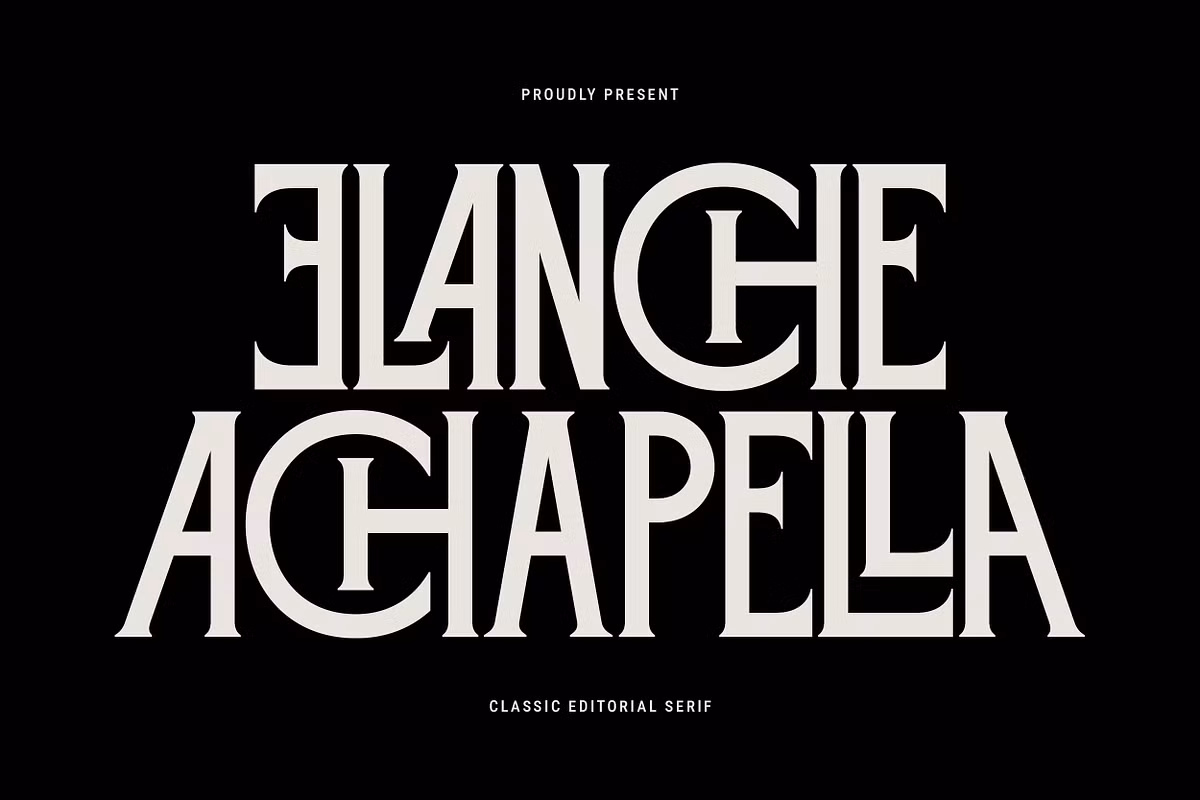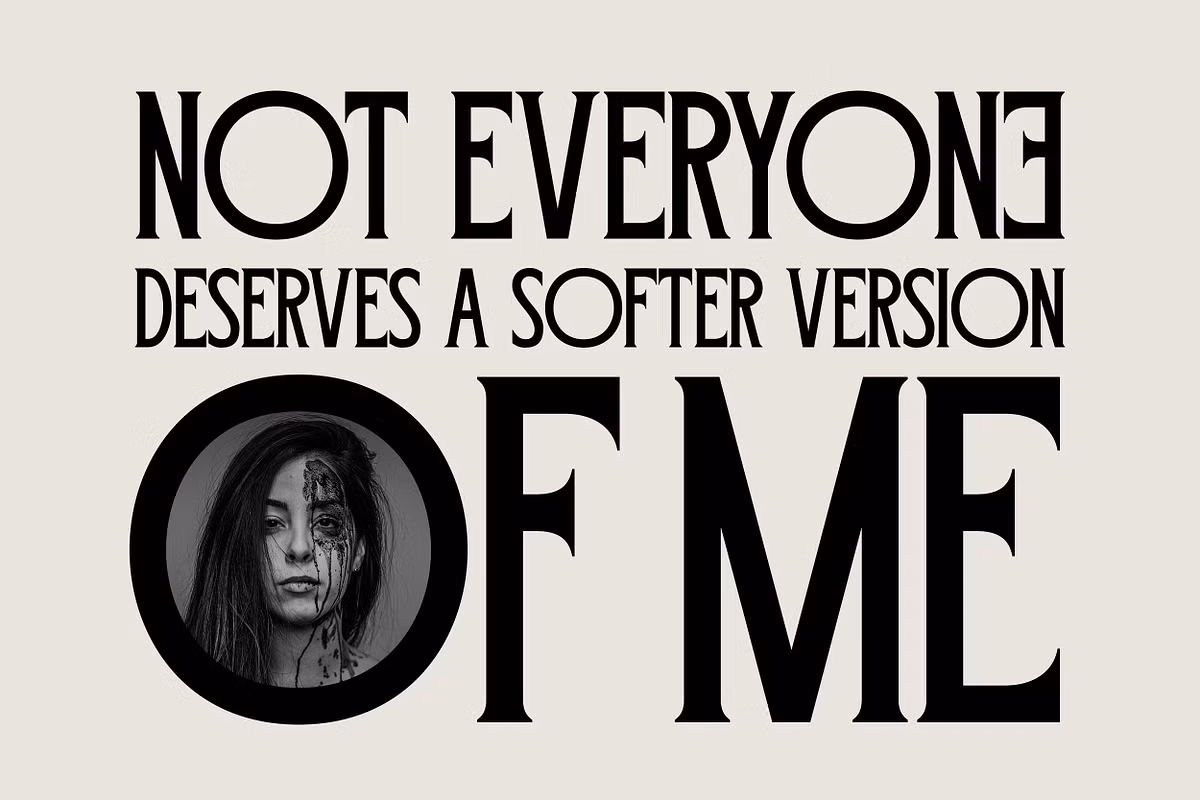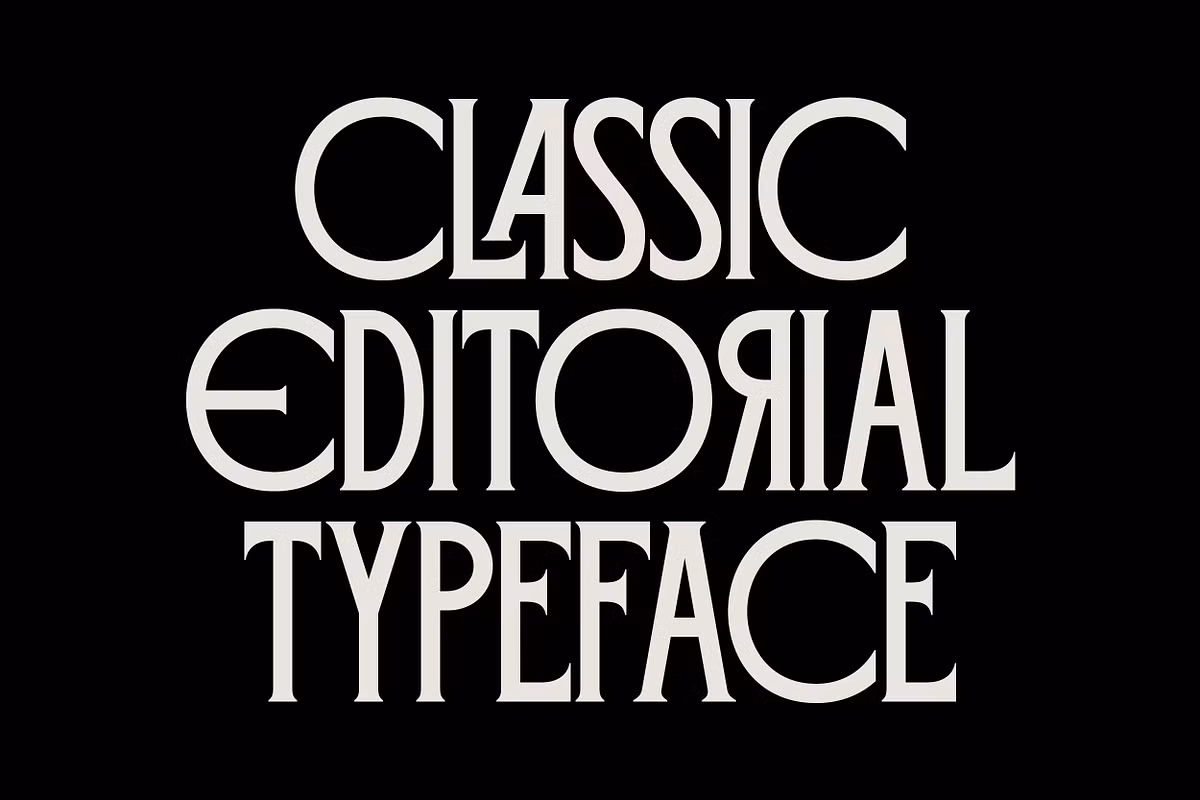
Elanche: Timeless Editorial Serif Typeface for Sophisticated Design
Elanche is a classic editorial serif typeface that embodies timeless elegance and high-impact typography. Drawing inspiration from luxury magazines, fashion editorials, and sophisticated branding, Elanche offers designers a unique opportunity to create visually stunning and memorable projects. This typeface is characterized by its strong personality and refined details, making it an essential addition to any designer’s toolkit.
The way Elanche looks is based on classic serif fonts, but it also has modern elements that set it apart. It has strong lines that really catch your eye. Every letter has smooth curves, which makes Elanche look sleek and high-end. This mix of old and new styles gives Elanche a unique feel. The curves are especially nice, they add a touch of elegance to the whole design. Overall, Elanche has a refined look that’s perfect for making a statement.
Its classic roots and modern twist make it a great choice for anyone who wants a font that’s both timeless and contemporary. Elanche is great for projects that need a strong but understated look. It has carefully designed extra characters and letter connections that let designers add unique touches to their text, making the whole project look better.
Character Sets and Features
Elanche comes equipped with a comprehensive set of features that enhance its usability and versatility. The typeface includes both uppercase and lowercase letters, numerals, and a full range of punctuation marks. This extensive character set ensures that designers can express their ideas clearly and effectively.
One of the standout features of Elanche is its ligatures, which are crafted to create seamless connections between certain letter combinations. This not only enhances the visual flow of text but also adds a layer of sophistication to your designs. Additionally, the typeface offers beautifully designed alternates that allow for more expressive typography, perfect for emphasizing particular words or phrases.
Importantly, Elanche provides full multilingual support, making it a reliable choice for global branding and diverse editorial layouts. This feature broadens its applicability, enabling designers to reach a wider audience without compromising on aesthetic quality.
Use Cases
Elanche is incredibly versatile and can be used across a variety of design projects. Here are some of the key use cases:
- Editorial & Magazine Layouts: The elegant serif style of Elanche is ideal for fashion magazines and lifestyle publications, where sophisticated typography is crucial for engaging readers.
- Luxury Branding & Logo Design: Elanche’s refined details and strong character make it an excellent choice for luxury brands looking to convey a sense of exclusivity and high quality.
- Fashion & Lifestyle Designs: Whether it’s a lookbook, advertising campaign, or social media graphics, Elanche adds a touch of class and modernity to fashion-related projects.
- Book Covers & Posters: The bold yet polished appearance of Elanche makes it suitable for book covers and posters, drawing attention and inviting readers to explore further.
- High-End Packaging: Elanche’s sophisticated aesthetic can enhance product packaging, making it stand out on shelves and appealing to discerning consumers.
When it comes to typography, pairing fonts effectively can greatly enhance your design. Elanche pairs beautifully with a variety of typefaces, allowing for dynamic and eye-catching combinations. Here are some pairing suggestions:
- Sans Serif Fonts: Pair Elanche with a clean sans serif font like Montserrat or Open Sans for a modern contrast. This combination works well in editorial layouts, where balance between classic and contemporary elements is key.
- Script Fonts: For a more creative touch, consider pairing Elanche with a script typeface like Great Vibes or Pacifico. This pairing can enhance invitations or high-end branding projects, adding a personal and artistic flair.
- Serif Fonts: To achieve a put-together and classy look, match Elanche with another serif font like Playfair Display. This combination works well for book covers or fashion magazines, where a fancy and layered arrangement is needed.
Whether you’re designing a high-end magazine or a modern book cover, Elanche gives your text a confident, classic sound with a modern twist. It’s perfect for making your designs stand out. By using Elanche, you can add a level of sophistication to your work and take it to the next level. It’s a great way to give your designs a unique voice and make them truly special. With Elanche, you can create something truly elegant and eye-catching.